Milgram
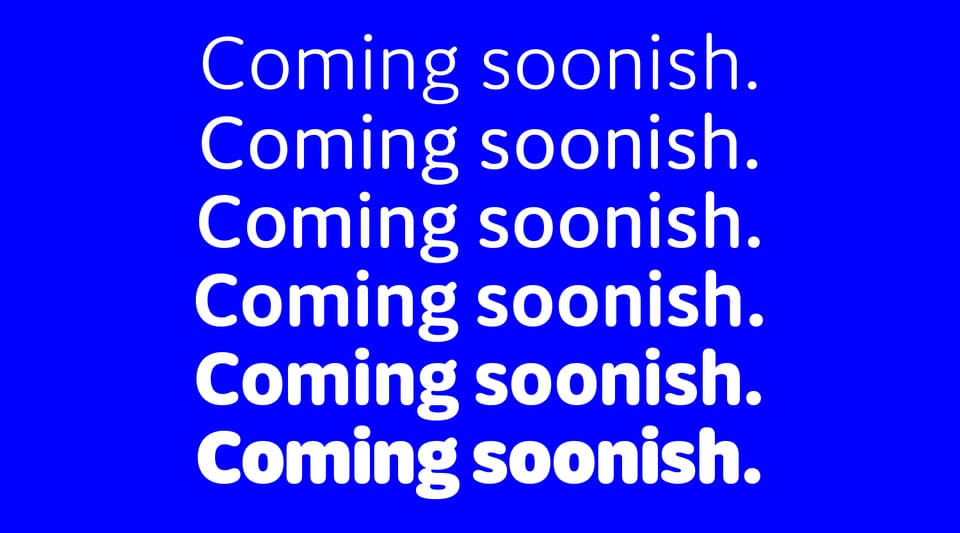
Here’s something I’ve wanted to add to our library for a long time: a rounded workhorse sans, with open humanist apertures and a generous x-height. I think the darkest styles have a zaftig, Oz Cooper quality, and the lightest weights look vaguely scientific, like letters engraved on a graduated beaker. The current plan is for six roman weights plus matching italics. Is this Signal’s answer to Calibri? No, but thanks for asking. I’m calling it Milgram after Stanley Milgram, whose eponymous experiments probed the behavior of ordinary people in totalitarian times. I’ve been thinking about him a lot these days for, ah, some reason. Currently on the long finger for release in 2026, but give a shout if you want a closer look sooner.
Exact for Block, Inc.
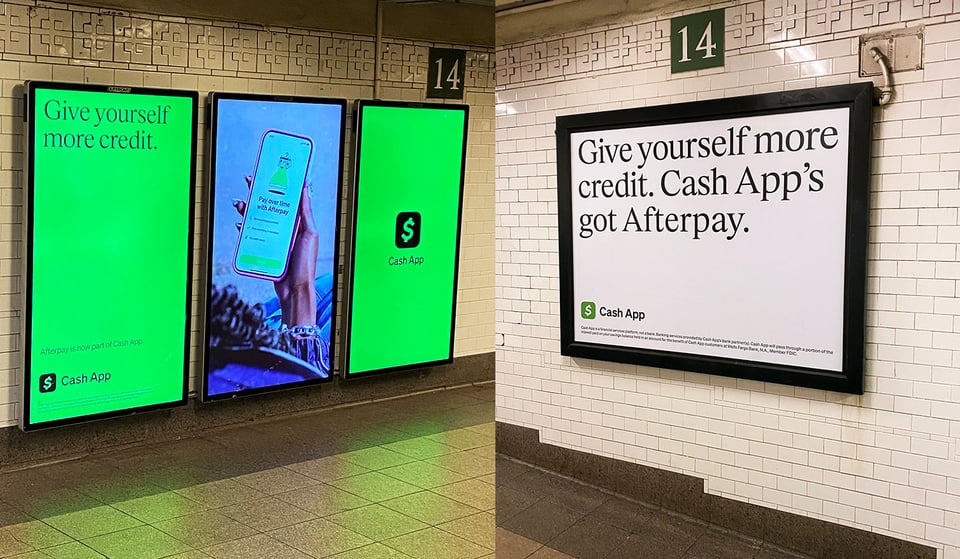
Pleased to report that the folks at Block, Inc. (parent company of Square, Cash App, and Tidal) have chosen our Exact typeface to support their new branding system. Part of the rollout was an advertising takeover of the sprawling Union Square subway station in New York City, where nearly every surface in sight bore another Cash App message sent in Exact Regular. OOH creative by Block’s own in-house team in collaboration with MediaMonks. The full Exact family is here. →
Reckham Specimen
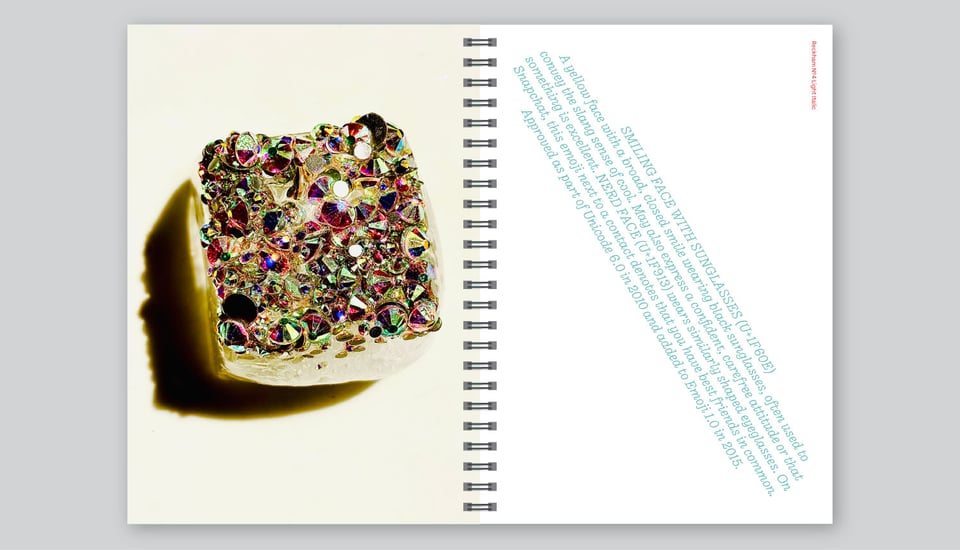
While the 24 styles of Reckham Italic wend their way through development hell, the Reckham specimen book proceeds apace. Featuring new work by Dublin-based artist Kirsten French, who’s been freezing a variety of household objects (fruit, garden clippings, fridge magnets, measuring tapes, Lego) into blocks of ice and taking macro photographs of them as they thawed. I felt these would be the perfect visual accompaniment to Reckham because I like them, the way I used to like Reckham before I had the bright idea of adding 24 styles of italic. The roman weights, of course, have been out for a while, and are here. →
Matre
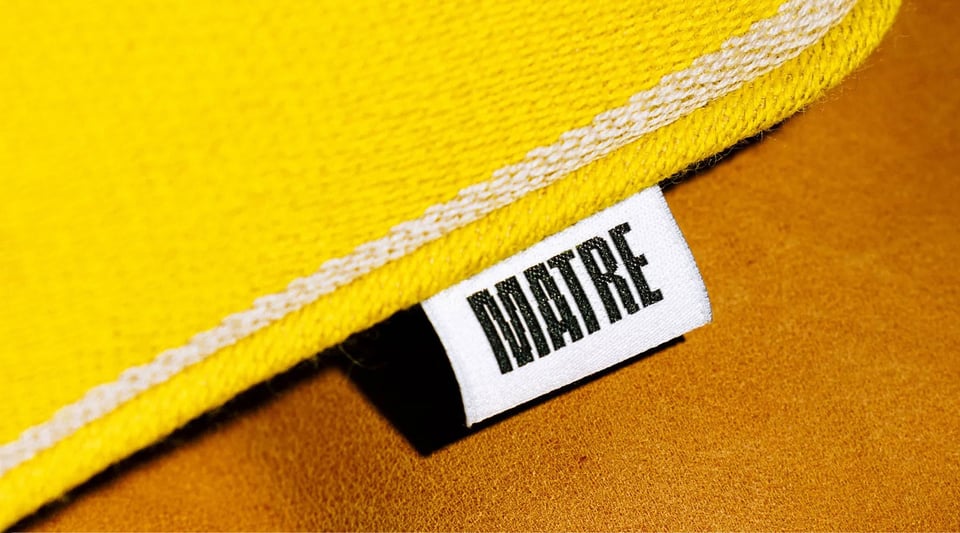
Matre is a new Oslo-based furniture company that “creates products to be loved and to last for generations.” They reissue Norwegian design classics and provide a platform for emerging design talent. And Oslo-based Bielke&Yang have done them a lovely new branding system using our Pressio. (And, in fairness, FKT Echo Condensed as well, which is a sharp-looking face in spite of the fact that we didn't design it.) You can check out Pressio here. →
Next Act
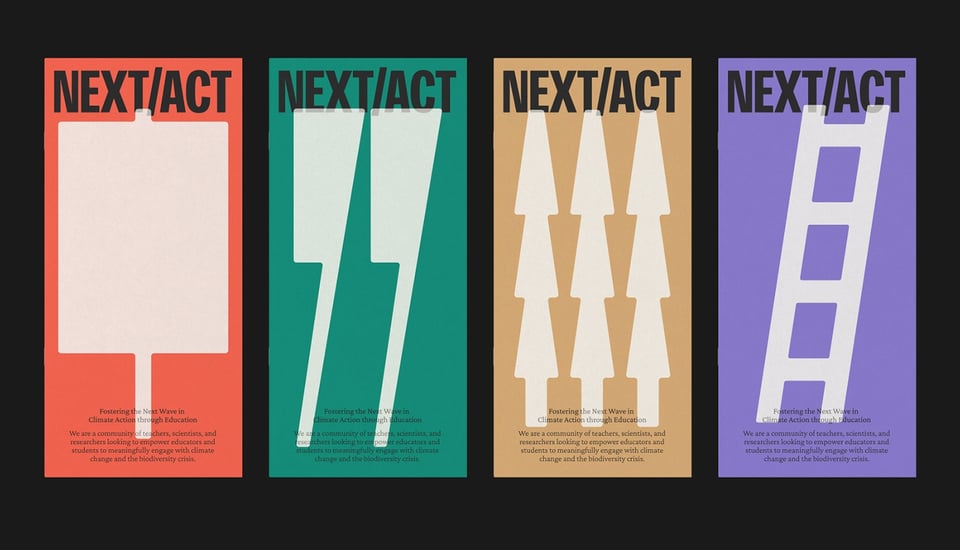
Next Act is a community of scientists, teachers and education researchers working to support meaningful responses to climate change through education. Post Studio crafted a sharp new identity and website for them using our own Ballinger Extra Condensed. Meet the whole family here. →